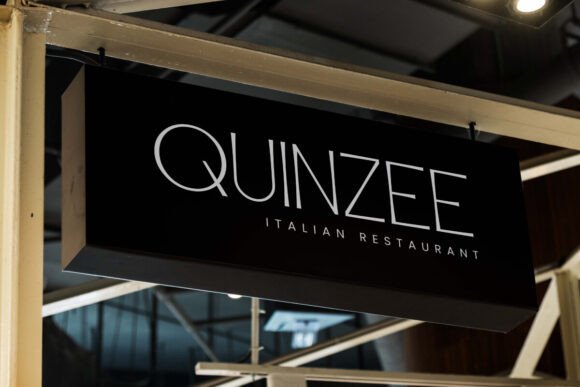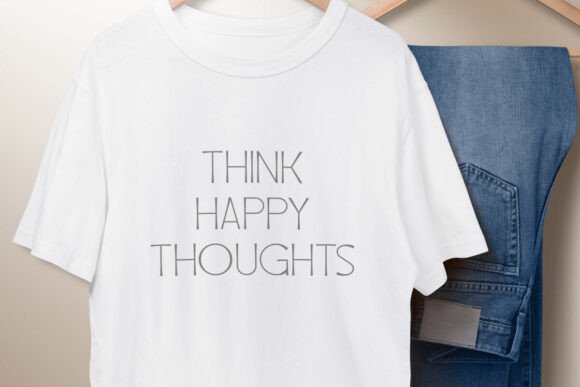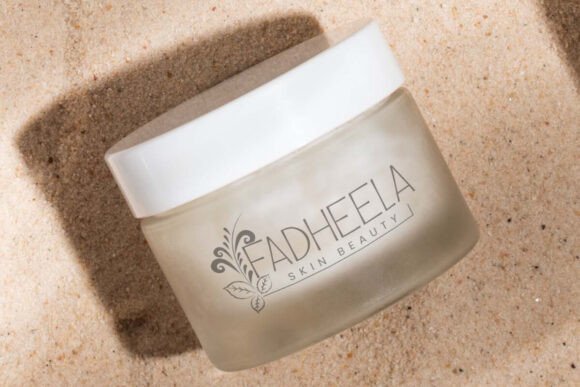
Butler Milan Font
Butler Milan Font is a minimalist yet stunning serif display font in a beautiful way. This combination of thick or thin lines and the characteristic of serif “counterstroke” is perfectly created to create an impression of elegance and stylish at the same time. It will be suitable for any business, such as accessories, art, beauty product, entertainment, event organizer, café, fashion, food and beverages, photography, printing, publishing, restaurant, writer, and many more!